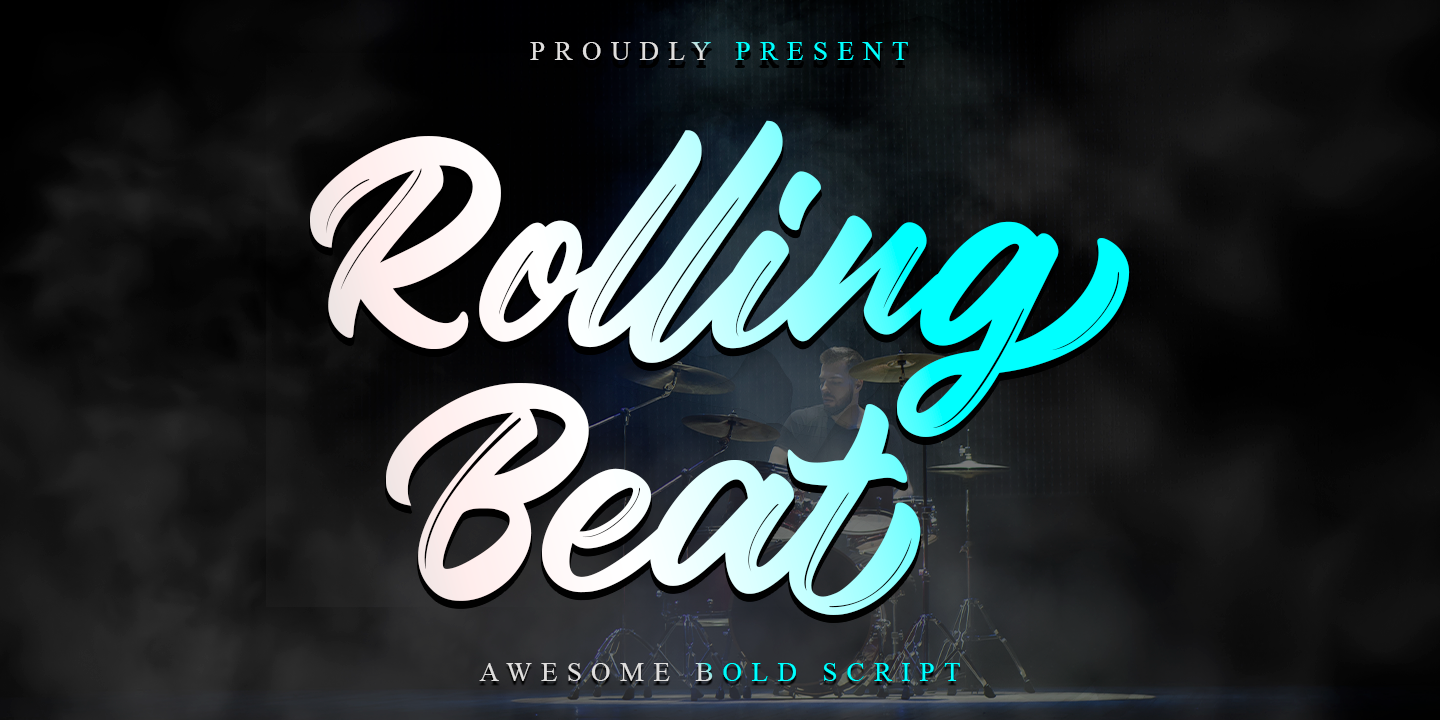
Rolling Beat Font Free Download – A rhythmic, music-inspired typeface that pulses with energetic groove and urban swagger. Commercial projects require licensing, but free personal testing is available.
Where to Use Rolling Beat Font?
This dynamic font rocks in:
• Music festival posters & album artwork
• DJ/hip-hop event promotions
• Record store branding
• Streetwear apparel prints
• Nightclub signage
• Urban lifestyle blogs
Why Rolling Beat Font Gets the Crowd Moving
This font delivers killer basslines with:
→ Uneven baseline mimicking head-bobbing rhythm
→ "Scratched vinyl" texture variations
→ Special musical note alternate glyphs
→ Perfect for neon club lighting effects
→ Includes rare "turntable" ornaments